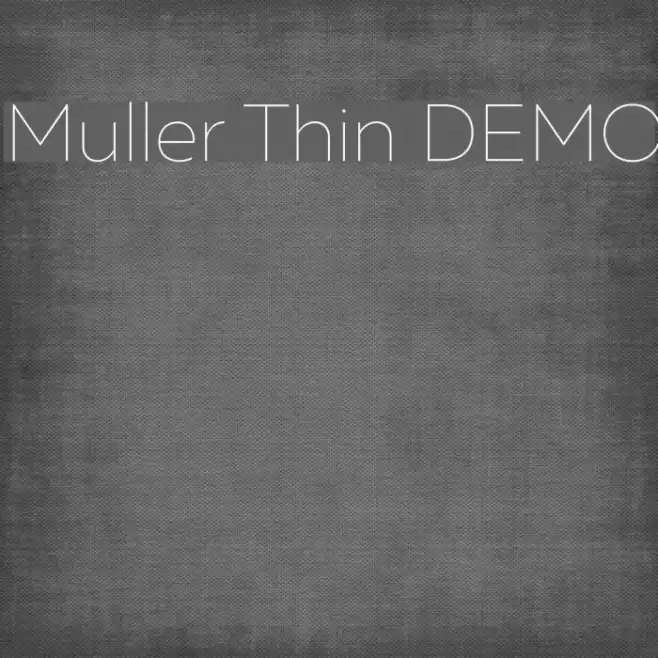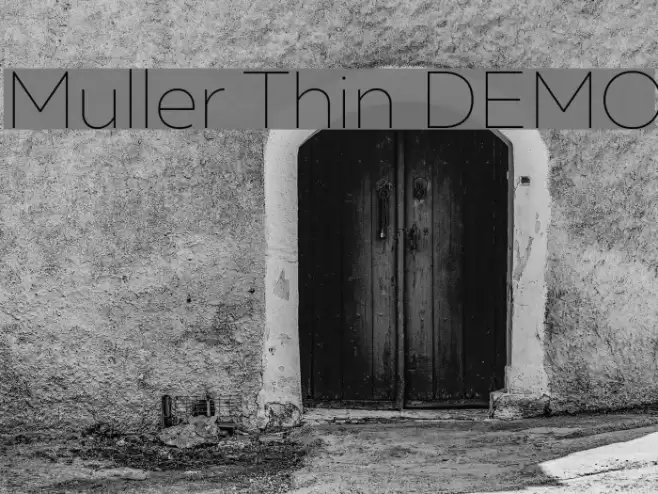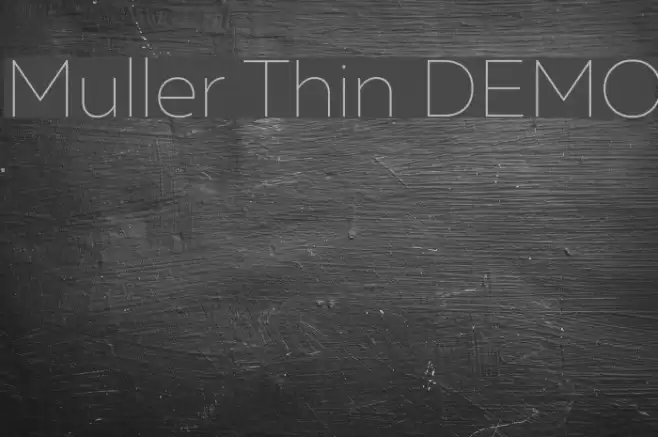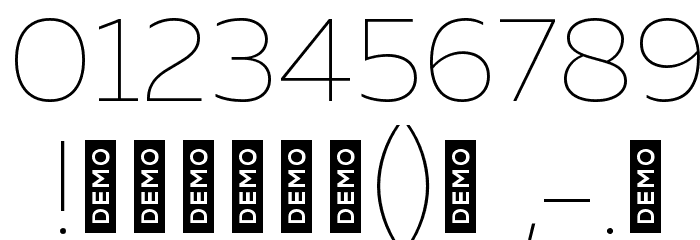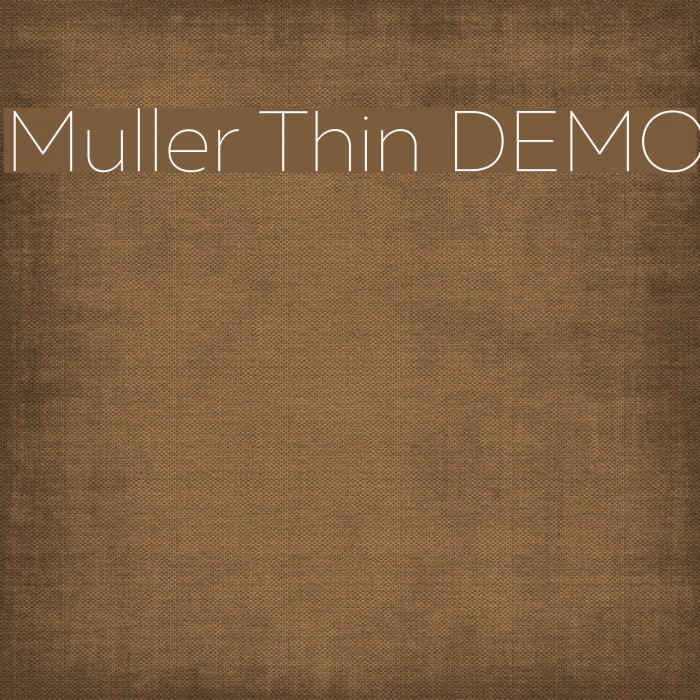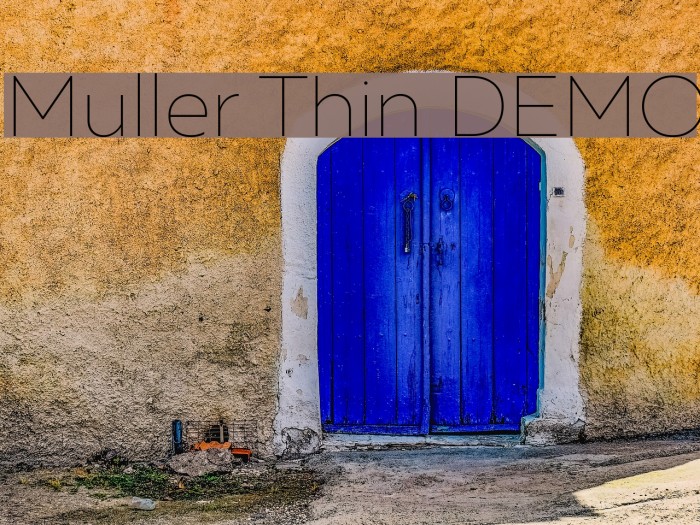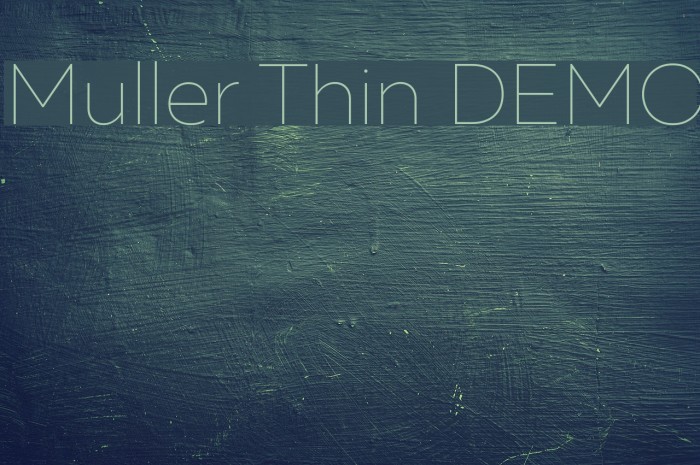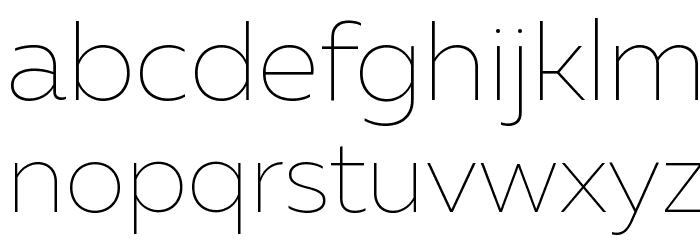
Muller Thin DEMO Font
Muller Thin DEMO Description
This font features a clean and modern sans-serif design with a thin and elegant appearance. The characters are well-proportioned with a consistent stroke width, creating a harmonious and minimalist aesthetic. The uppercase and lowercase letters maintain a uniform style, while the numerals and special characters are designed to complement the overall look. The font's simplicity and clarity make it highly readable, suitable for a variety of applications where a sleek and contemporary feel is desired.
A modern, thin sans-serif font with a clean and minimalist design from Uncategorized fonts.